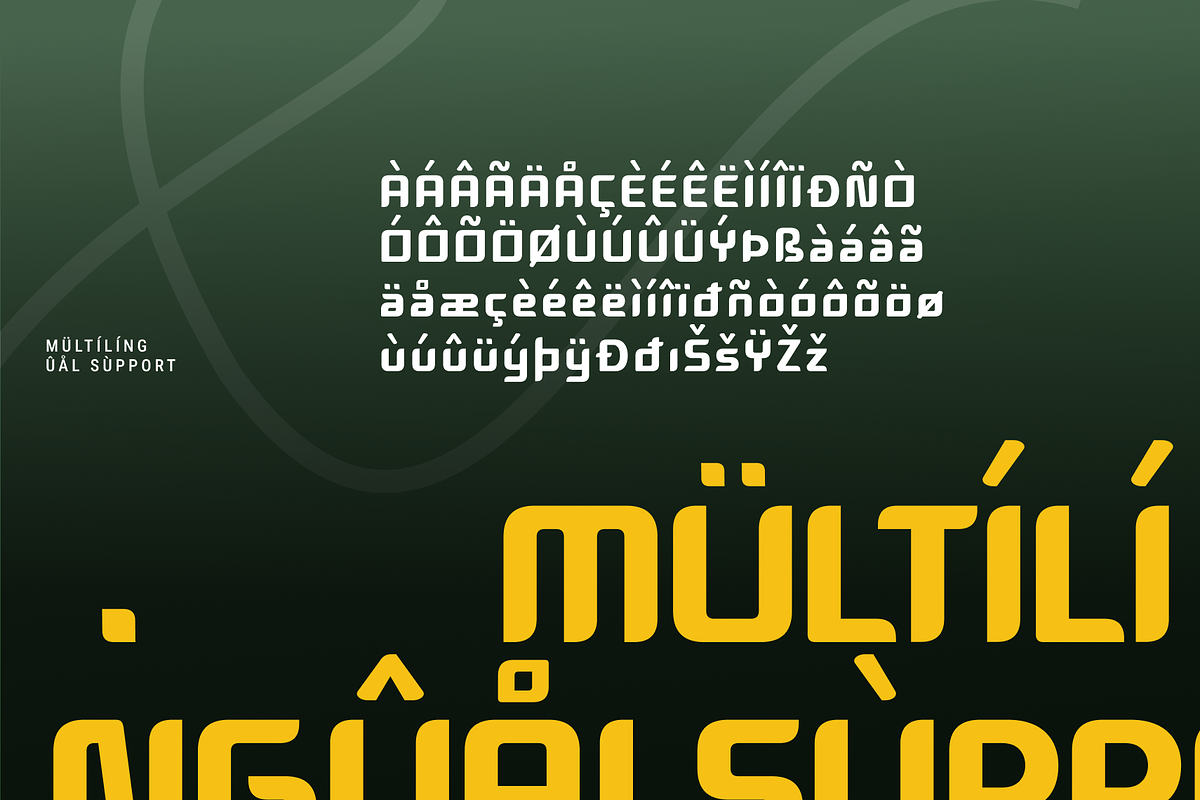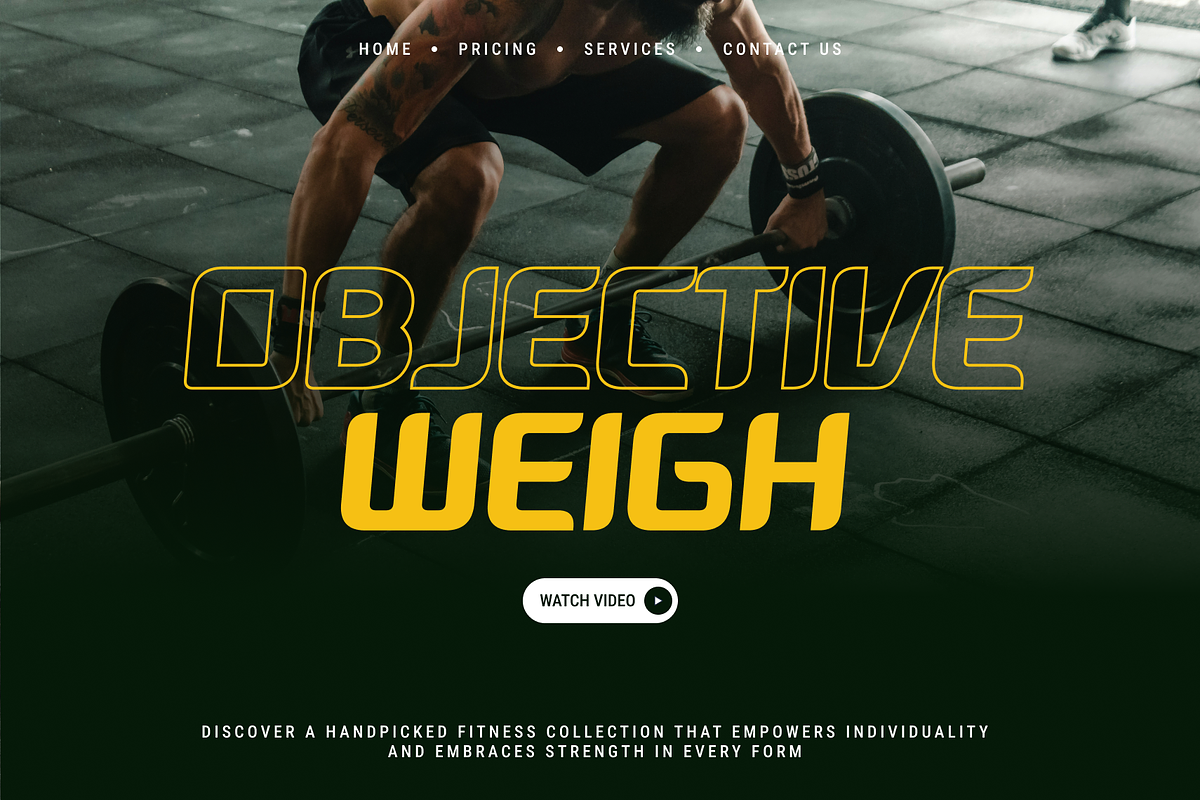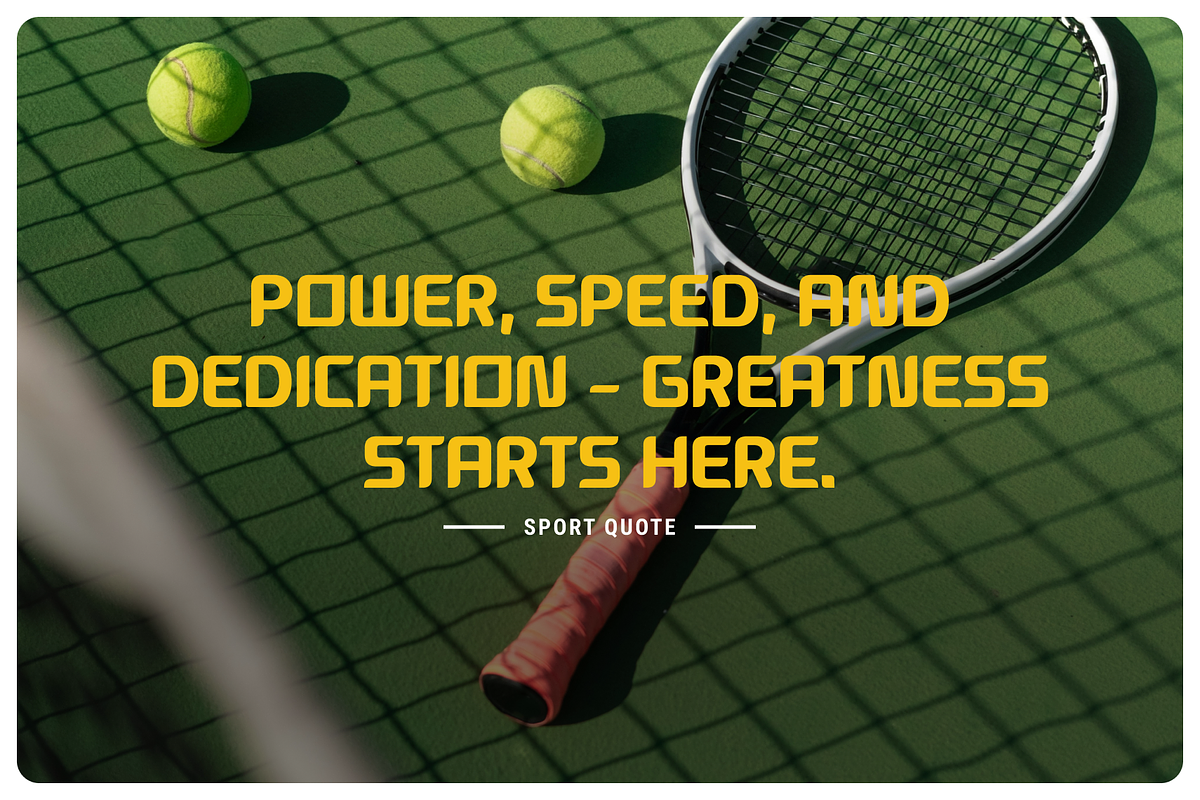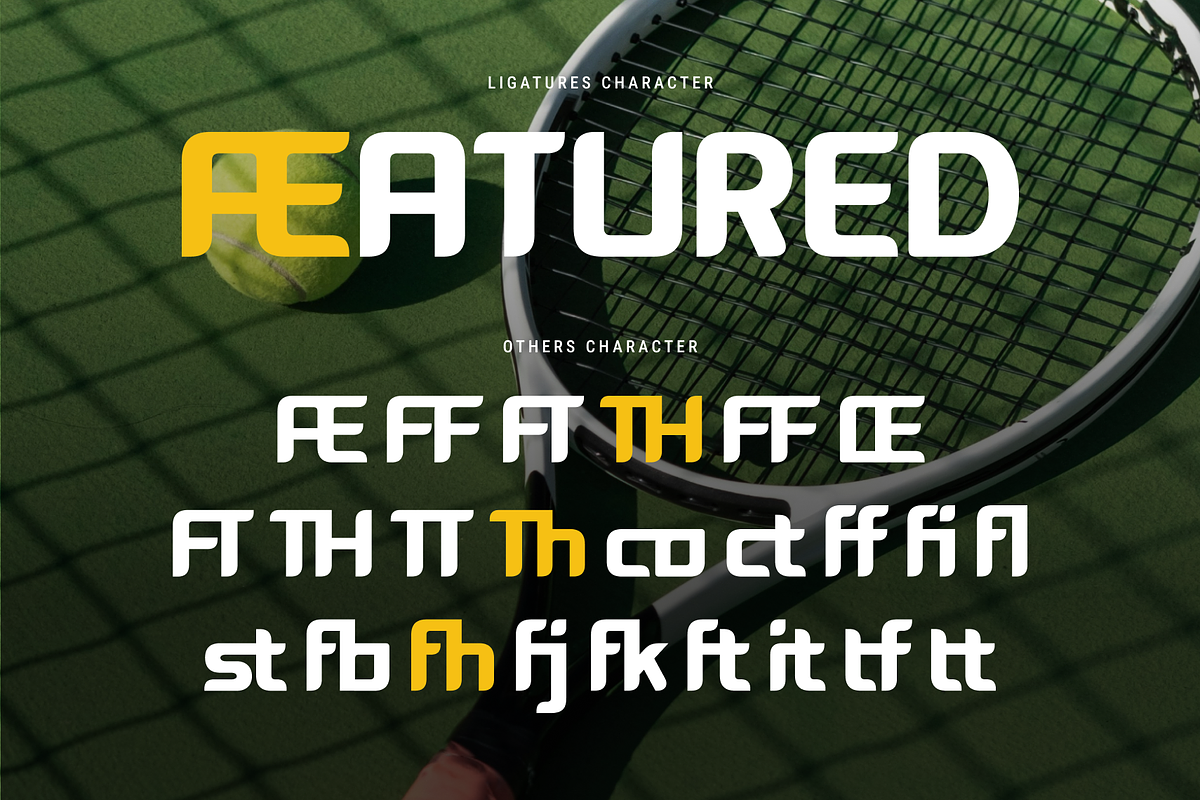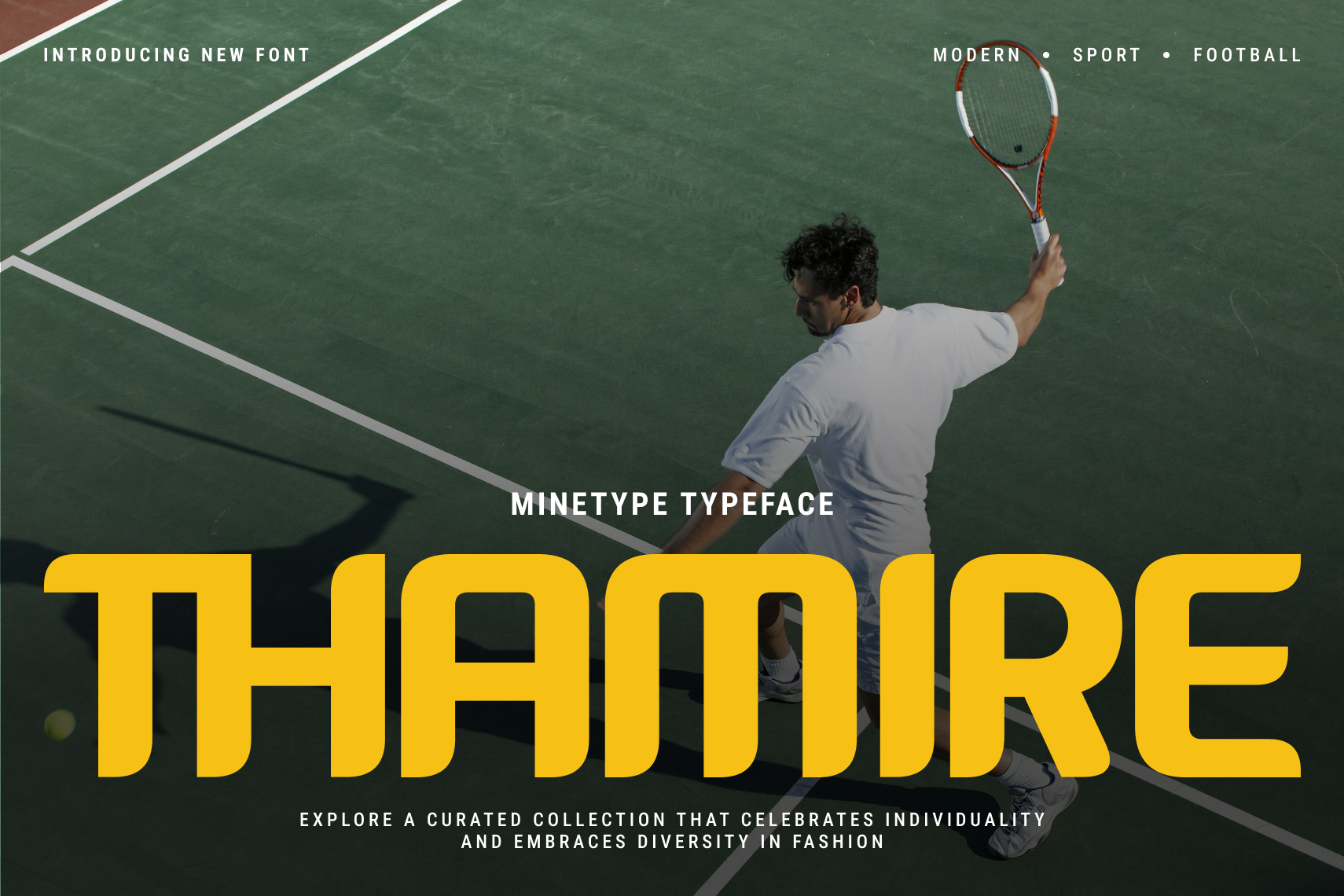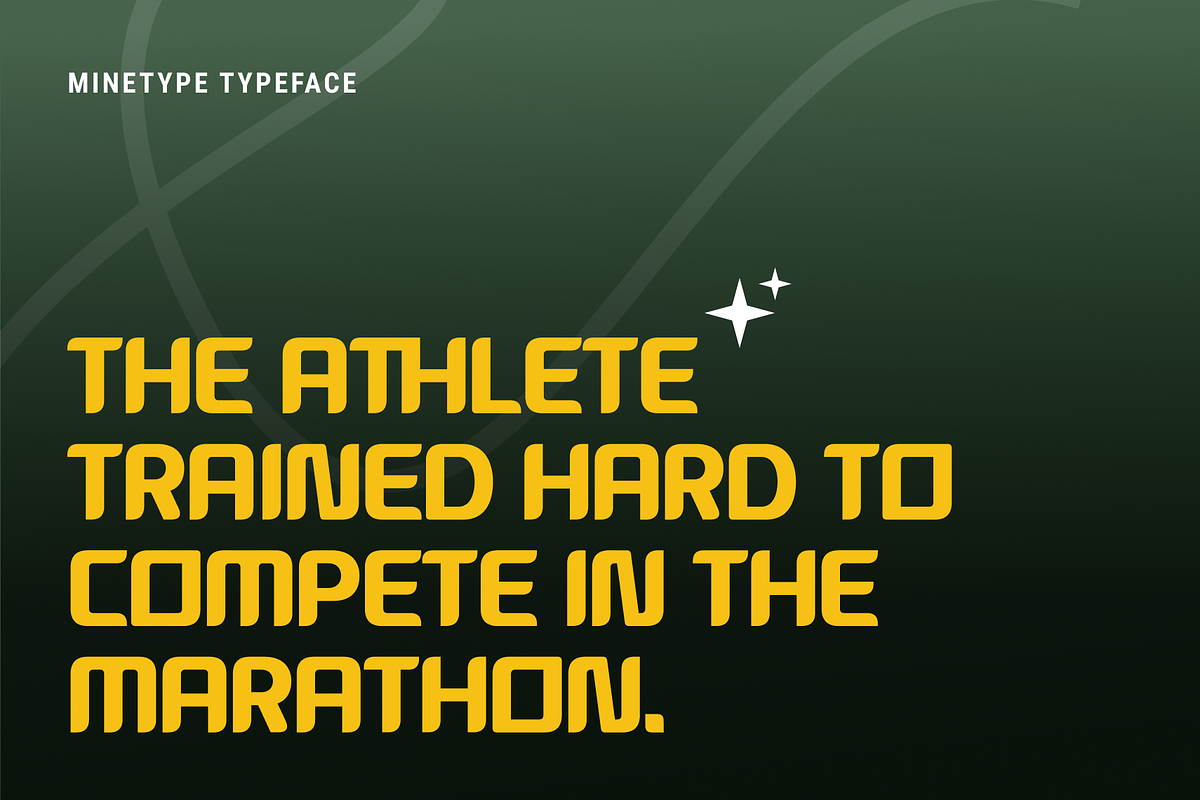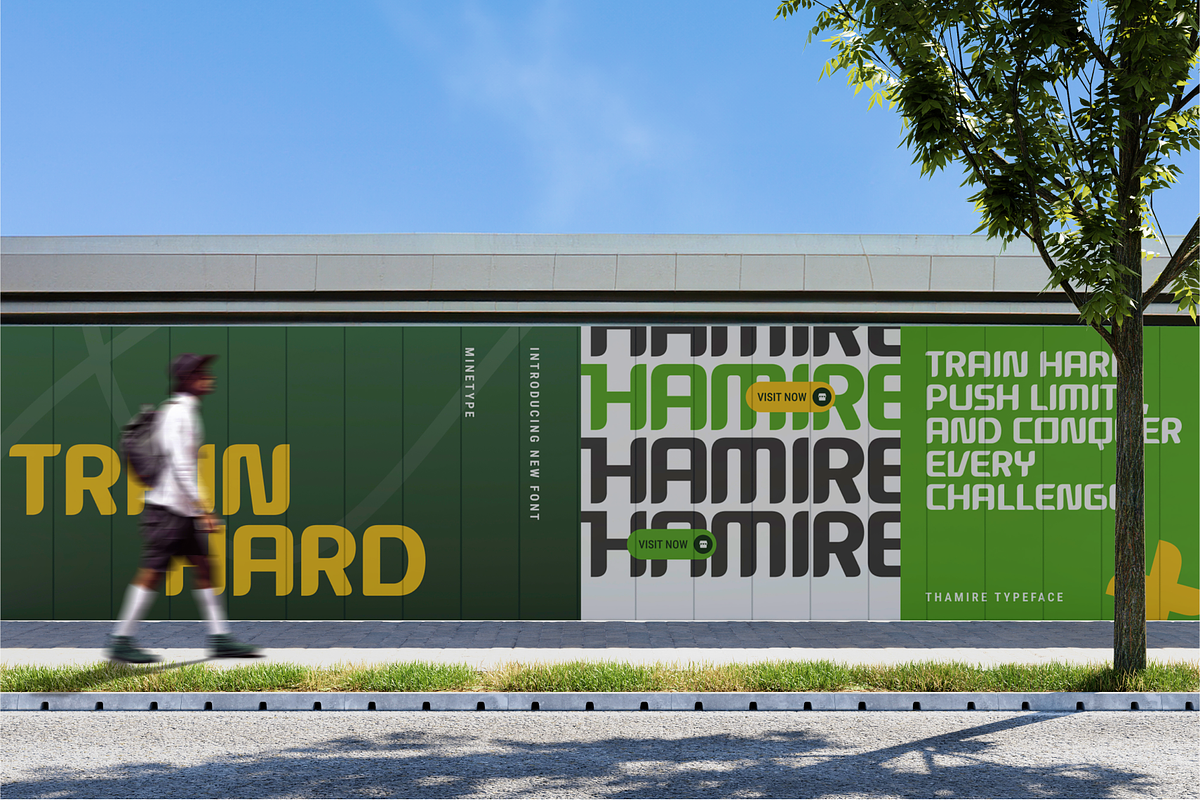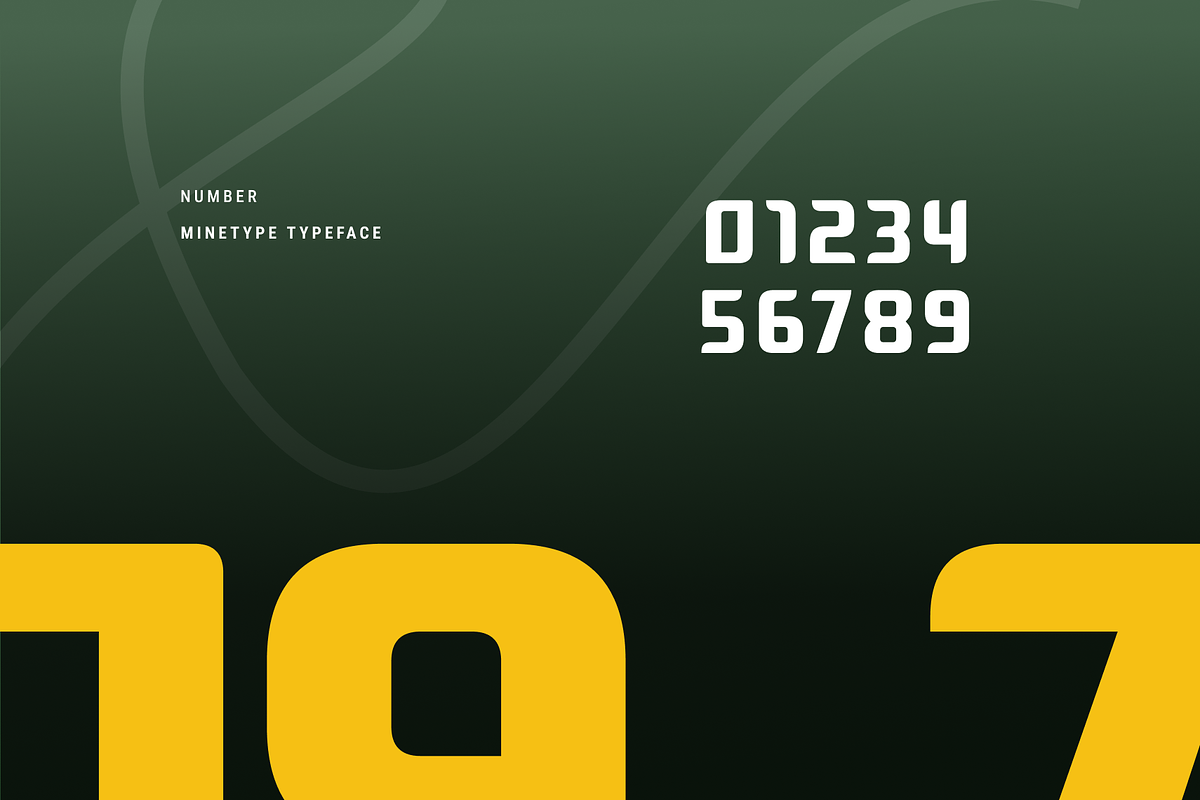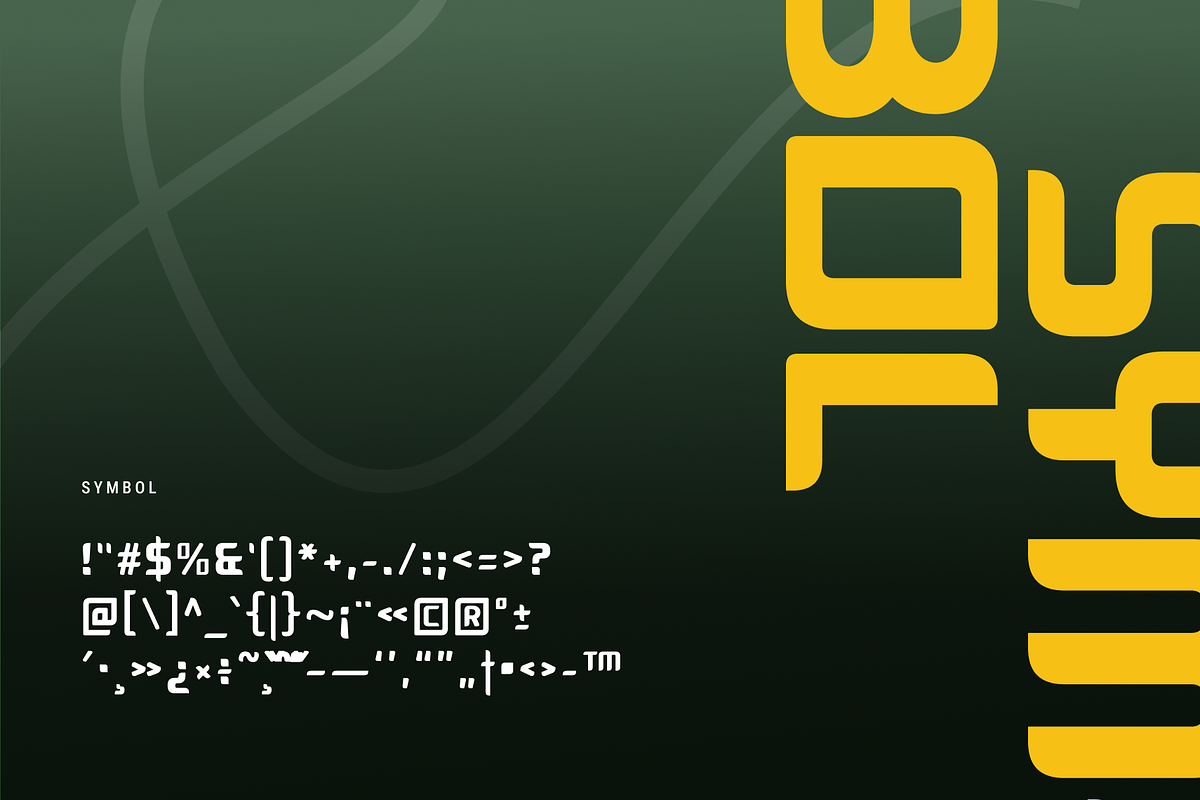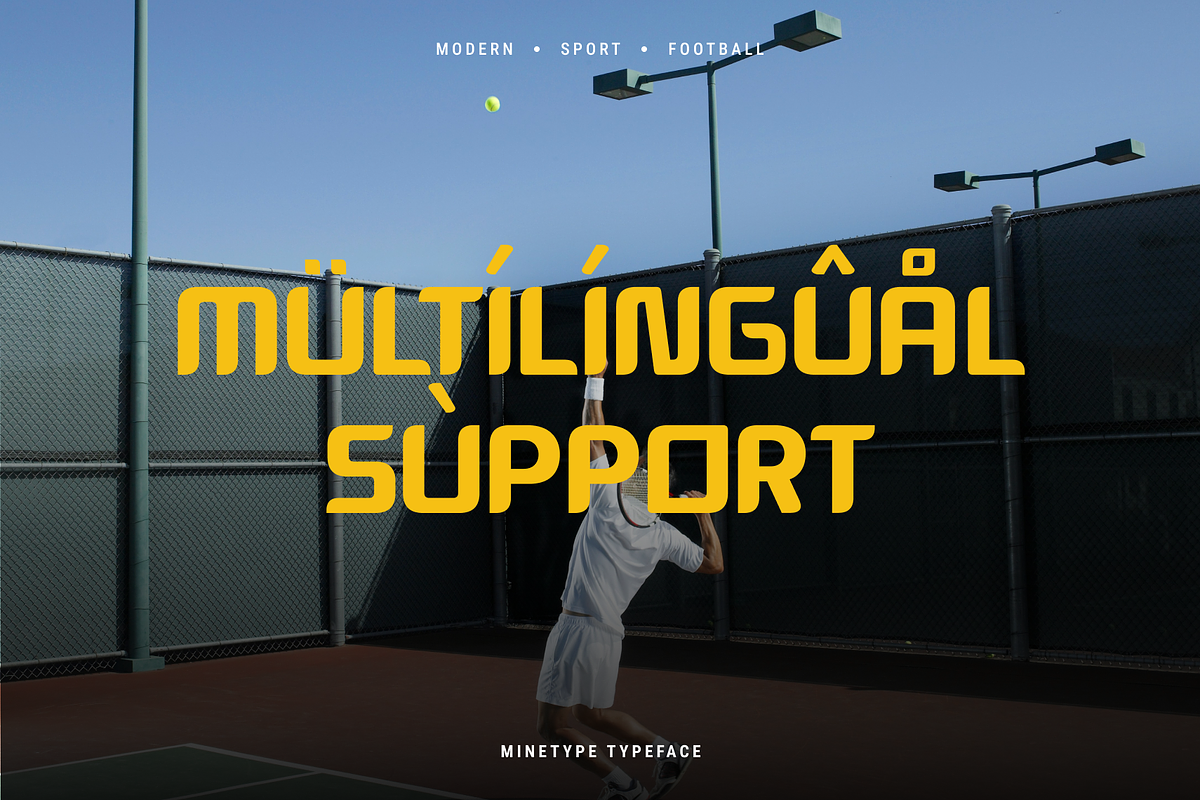
Thamire - Sports Font
Thamire is a bold and modern sports font designed for projects that demand strength, energy, and impact. With its sharp edges and athletic style, it’s perfect for sports branding, team jerseys, fitness designs, esports graphics, and dynamic logos.
This all-caps typeface ensures high visibility and readability, making it ideal for posters, gaming visuals, gym apparel, and competitive designs. Whether you’re working on sport-inspired branding, powerful typography, or energetic layouts, Thamire delivers a strong and professional touch.
- ✔ Modern & Bold: Designed for high-impact visual appeal.
- ✔ Multilingual Support: Covers multiple languages for global use.
- ✔ Ligatures Included: Enhances design flexibility and uniqueness.
- ✔ Complete Character Set: Includes uppercase, numbers, and symbols.
- ✔ Perfect For: Logos, jerseys, posters, gym branding, gaming, and esports.